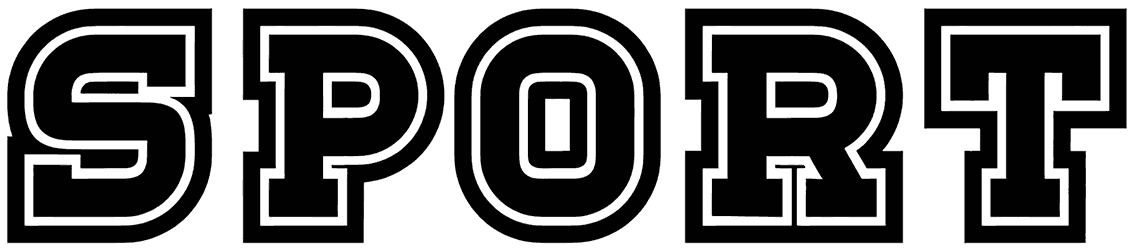
Sport Font
When it comes to highlighting your typography setup, fonts behave as the first decider. That’s why our website, Resource Boy, brings an old-school font inspired by retro effects to share trustworthy and vintage vibes with your observers.
Although this football font doesn’t sustain lowercase letters, its different styles in strong outline arrangements can do wonders for making a crowd-pleaser scheme of headlines, posters, book covers, magazines, TV shows, and more. Take delight in designing!